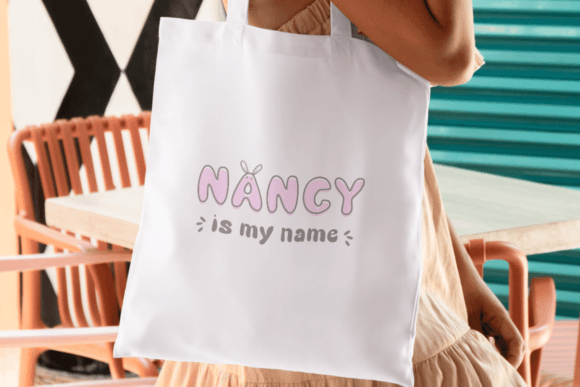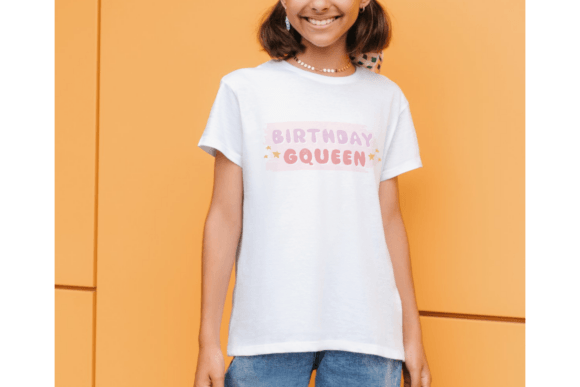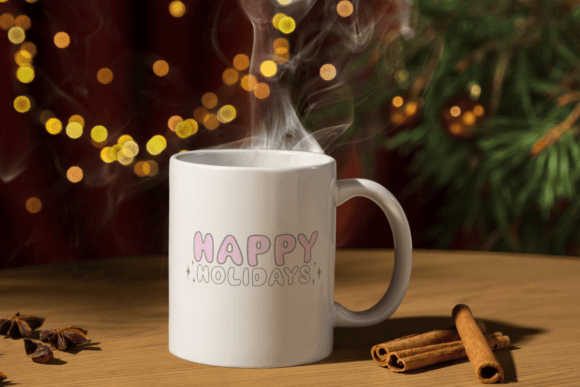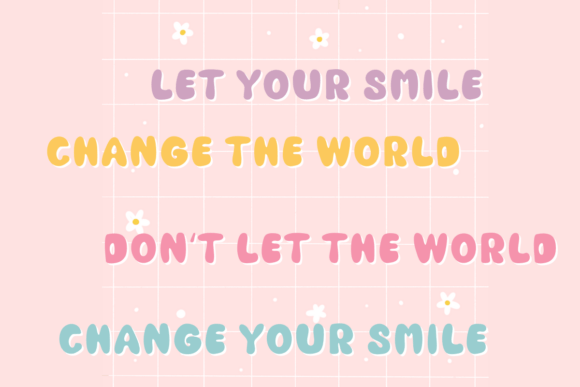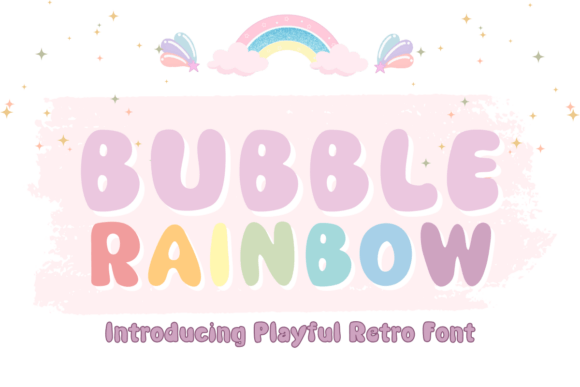
Bubble Rainbow Font: Adding a Burst of Joy to Your Designs
Are you looking for a font that can add a touch of whimsy and fun to your designs? Look no further than Bubble Rainbow Font! This playful and vibrant handwritten font is perfect for designers and crafters who want to bring a burst of joy to their projects. With its bubbly, rounded letters and cheerful aesthetic, Bubble Rainbow Font is sure to make your designs stand out.
The Perfect Font for Whimsical Designs
Bubble Rainbow Font is a unique and eye-catching font that is perfect for designs that need a touch of personality. Its bubbly, rounded letters are reminiscent of childhood wonder and magic, making it ideal for projects that require a playful and whimsical touch. Whether you’re designing a party invitation, a children’s book illustration, or a crafting project, Bubble Rainbow Font is sure to bring a smile to your face and add a splash of color to your design.
What Makes Bubble Rainbow Font Special?
So, what makes Bubble Rainbow Font so special? Here are just a few features that set it apart:
- Playful and Vibrant: Bubble Rainbow Font is a playful and vibrant font that is sure to add a burst of energy to your designs. Its bright colors and cheerful aesthetic make it perfect for projects that require a fun and lively touch.
- Handwritten Style: Bubble Rainbow Font is a handwritten font that has a personal and unique feel. Its imperfections and quirks make it look like it was written by hand, adding a touch of warmth and personality to your designs.
- Bubbly, Rounded Letters: The letters in Bubble Rainbow Font are bubbly and rounded, giving it a fun and playful feel. This makes it perfect for designs that require a touch of whimsy and fun.
- Multicolored: One of the best things about Bubble Rainbow Font is its multicolored design. The font features a range of bright, bold colors that are sure to add a splash of color to your designs.
Using Bubble Rainbow Font in Your Designs
So, how can you use Bubble Rainbow Font in your designs? Here are just a few ideas to get you started:
- Crafting Projects: Bubble Rainbow Font is perfect for crafting projects, such as scrapbooking, card making, and DIY decorations. Add a touch of whimsy and fun to your projects with this playful font.
- Children’s Book Illustrations: If you’re illustrating a children’s book, Bubble Rainbow Font is a great choice. Its playful and vibrant design is sure to delight kids and add a touch of magic to your illustrations.
- Party Invitations: Party invitations are a great way to use Bubble Rainbow Font. Its bright colors and cheerful aesthetic make it perfect for birthday parties, baby showers, and other celebrations.
- Social Media Graphics: Add a touch of personality to your social media graphics with Bubble Rainbow Font. Its playful design is sure to make your graphics stand out and grab attention.
Tips for Using Bubble Rainbow Font
Here are a few tips for using Bubble Rainbow Font in your designs:
- Use it Sparingly: While Bubble Rainbow Font is playful and fun, it can be overwhelming if used too much. Use it sparingly to add a touch of whimsy and fun to your designs.
- Pair it with Other Fonts: Bubble Rainbow Font pairs well with other fonts, such as sans-serif fonts and script fonts. Experiment with different font combinations to find the perfect look for your design.
- Experiment with Colors: One of the best things about Bubble Rainbow Font is its multicolored design. Experiment with different color combinations to find the perfect look for your design.
| Font Name | Bubble Rainbow Font |
In conclusion, Bubble Rainbow Font is a playful and vibrant handwritten font that adds a burst of joy to any project. With its bubbly, rounded letters and cheerful aesthetic, this font is perfect for designs that need a touch of whimsy and fun. Whether you’re a designer or crafter, Bubble Rainbow Font is sure to bring a colorful spark to your ideas. So why not give it a try and see how it can add a touch of personality to your designs?